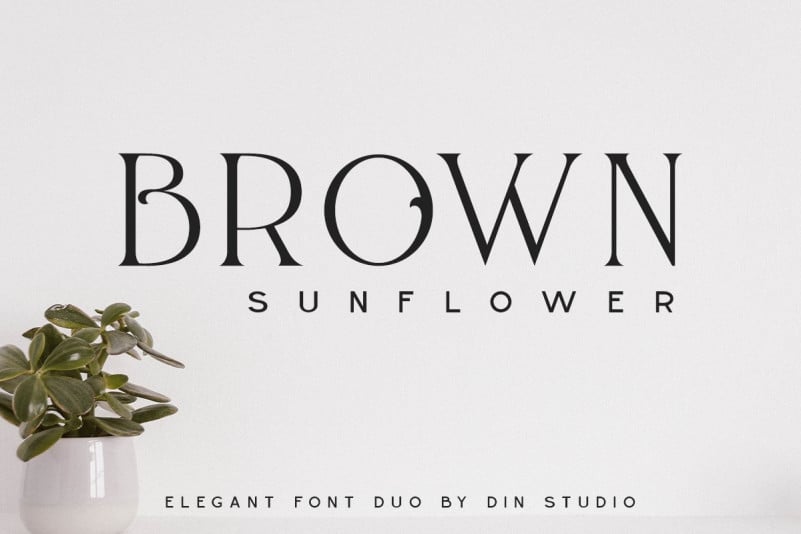
Brown Sunflower Display Font
Brown Sunflower Display Font is a elegant and classy serif typeface – This font is both modern and nostalgic and works great for logos, magazine, social media. Use Brown Sunflower and you’ll achieve impact without having to resort to cheap tricks. Combined from light modern serif and decorative sans serif. It will make your design more modern and more beautiful.